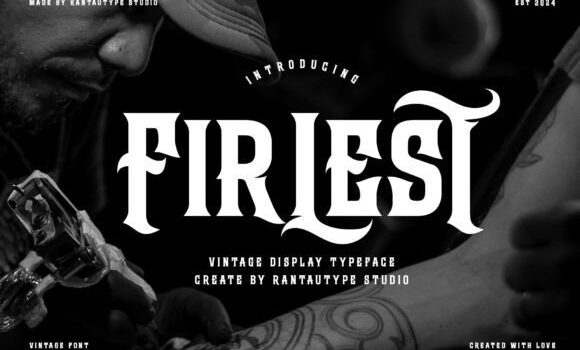
firlest
Firlest Font - Featured Image
Firlest Font – Free Download Introduction to Firlest Font Firlest is a stylish, vintage-style display font that captures the charm of a bygone era with its bold and elegant letterforms. 📸 Preview Gallery 6 images 📌 Product Name Firlest Font